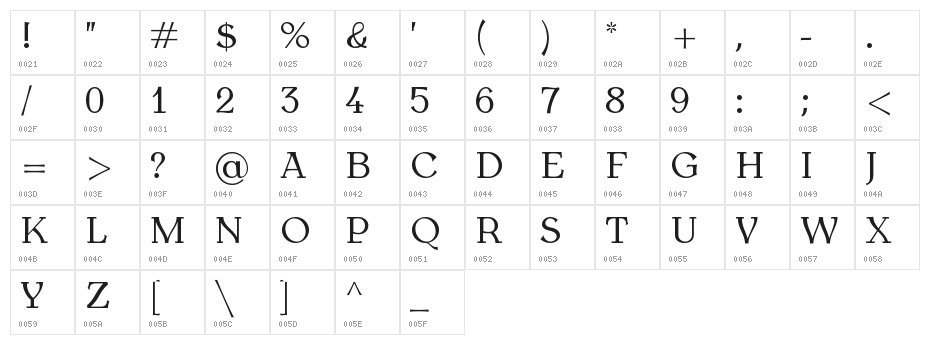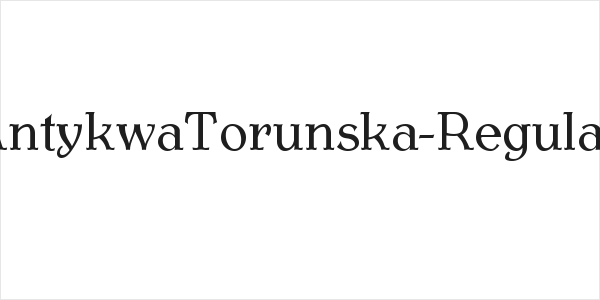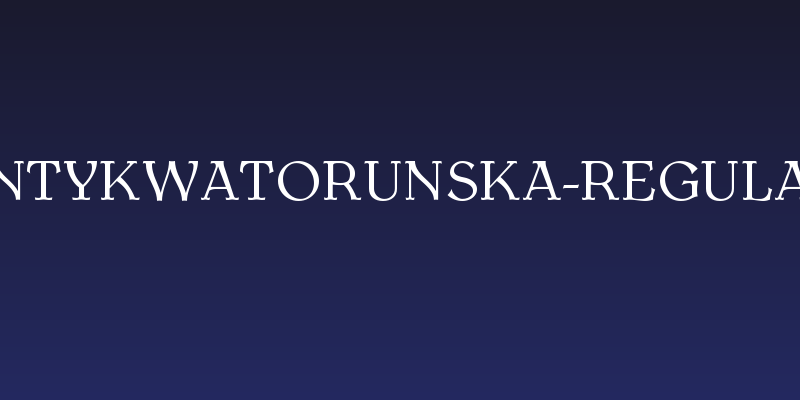
AntykwaTorunska-Regular Font
AntykwaTorunska-Regular Description
This font exhibits a classic serif style with a touch of elegance and sophistication. The characters are well-defined with sharp serifs and a balanced proportion, giving it a timeless appeal. The uppercase letters are bold and commanding, while the lowercase letters maintain a graceful flow. The numerals are clear and distinct, making them easily readable. Special characters are designed with attention to detail, ensuring consistency across the font. This font's design is versatile, suitable for both traditional and modern applications.
| Proposed Projects | Ideal for book covers, editorial design, formal invitations, and branding projects that require a touch of elegance. |